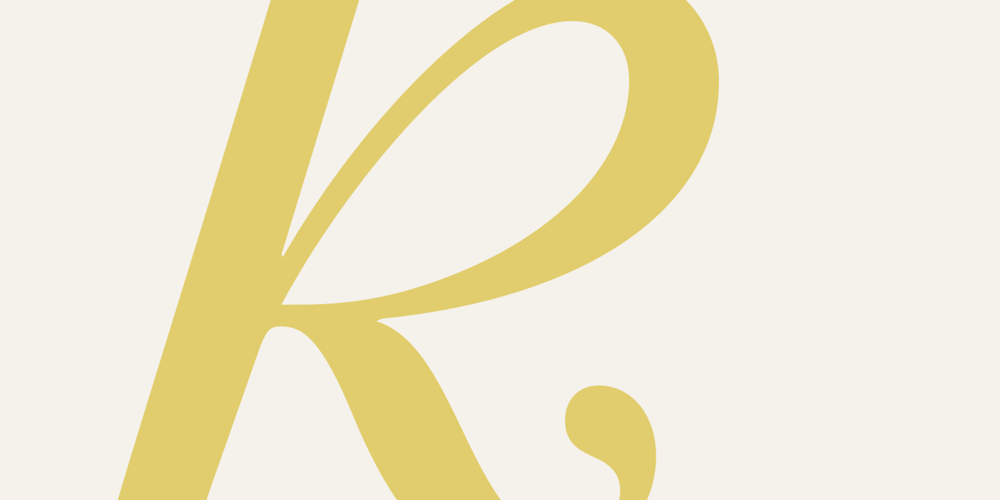
ITC Garamond Font Family was designed by Claude Garamond, Tony Stan and published by ITC. ITC Garamond contains 24 styles and family package options. Drawn by Tony Stan, ITC Garamond was first released in 1975 in Book and Ultra weights only. These were intended as display faces to complement existing text designs from other foundries. (In fact, many of ITC’s interpretations of traditional typefaces began as display counterparts for existing text designs.) These first weights of ITC Garamond became so popular, however, that ITC released the Light and Bold weights and a suite of condensed faces in 1977. Now, the complete ITC Garamond family features sixteen members: four weights of roman and italic in normal width and four weights of roman and italic in companion condensed versions. The family resemblance is there, but ITC Garamond’s unique provenance gives it an unmistakable, one-of-a-kind appeal.